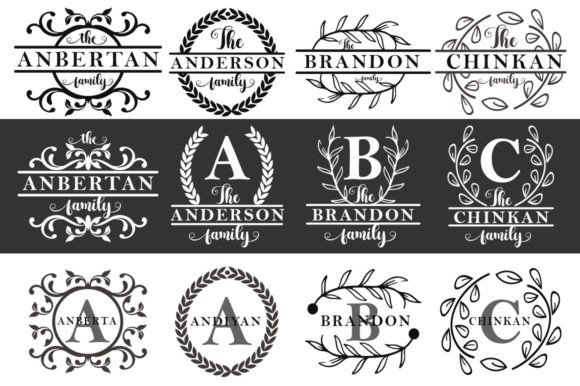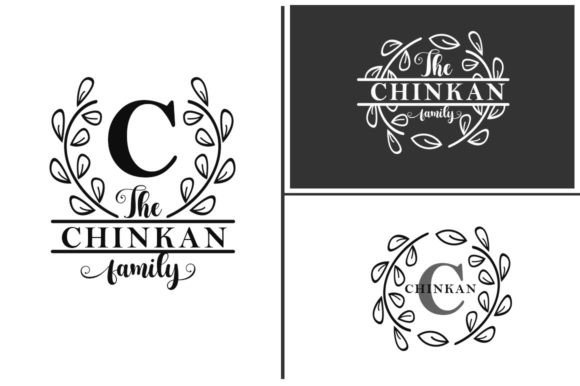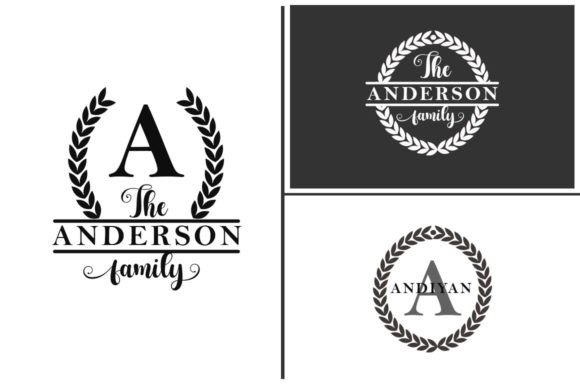
Family Monogram Font
About the Family Monogram Font
Experience the unique personality of Family Monogram Font, a font designed for impact. Family Monogram is an elegant decorative font, featuring lovely ornaments. Fall in love with its authentic feel and use it to create gorgeous wedding invitations, beautiful stationary art, eye-catching social media posts, and cute greeting cards.
Family Monogram’s elegant, decorative style is ideal for projects requiring a touch of vintage charm. It excels in headlines, short text blocks on invitations, and branding elements where visual impact is key. Consider it for logos, social media graphics, or packaging for luxury goods. However, its ornate nature makes it unsuitable for body text or UI elements where readability is paramount. Long paragraphs set in this font would be difficult to read.
The font’s inherent elegance pairs well with clean sans-serif fonts like Helvetica Neue for a balanced contrast, or with a classic serif like Garamond for a more traditional feel. A script font with a similar level of refinement could also create a cohesive and luxurious look. Avoid pairing it with overly playful or geometric sans-serifs, as these would clash with its delicate personality.
Family Monogram exudes a sophisticated, romantic personality, best suited to brands and projects focused on luxury, tradition, or handcrafted quality. Think wedding stationery, high-end boutiques, or artisan food products. Its decorative elements add a touch of vintage flair without overwhelming the overall design.
Family Monogram Font Usage Examples
Family Monogram Font Example